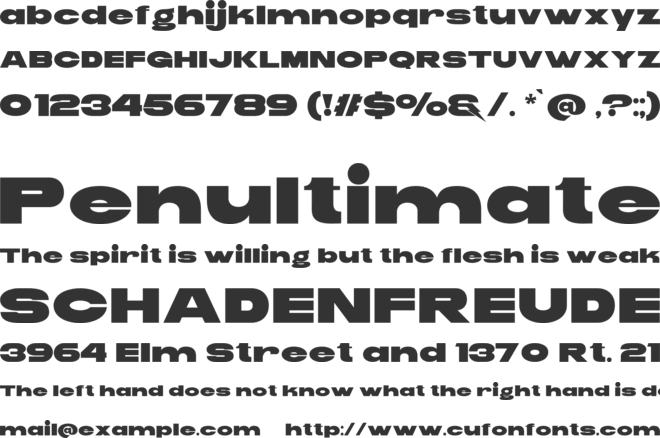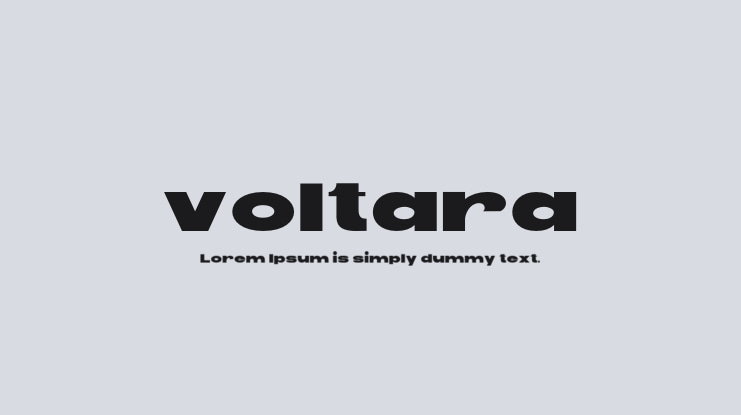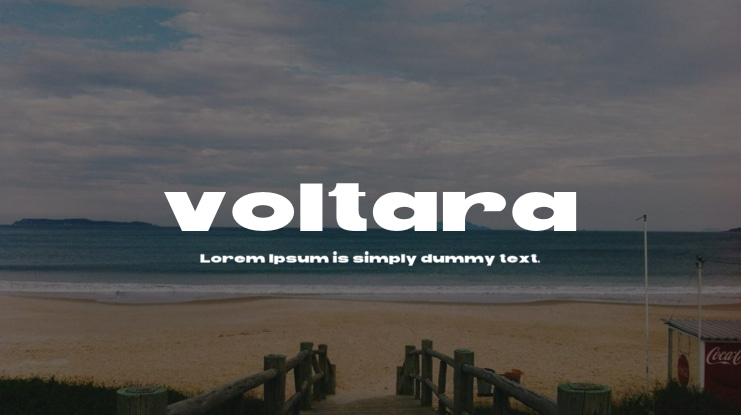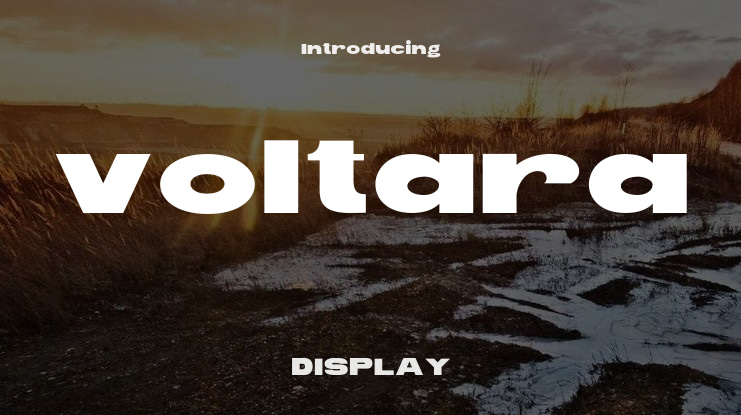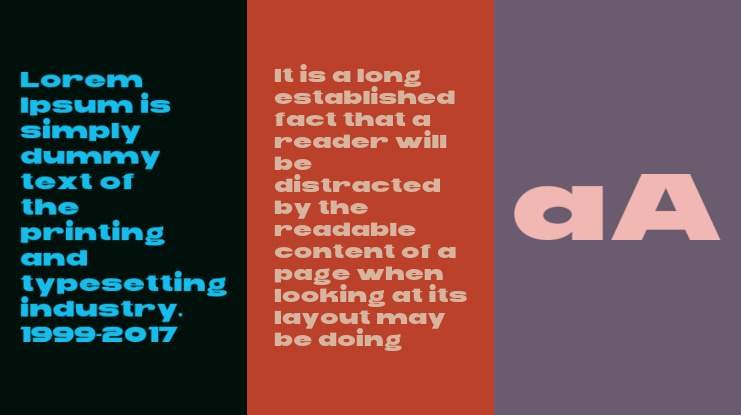
voltara Font
Experience a burst of creativity with Voltara, a font where each letter exudes innovation. Its vibrant and dynamic style is inspired by volts and electrical themes. Using this font will bring a creative and electrifying vibe to your text. Its modern and distinctive design will make your projects stand out with a touch of style. Voltara comes in three styles: regular, decorative, and outline, making it the perfect choice for any design project with an electrical theme.